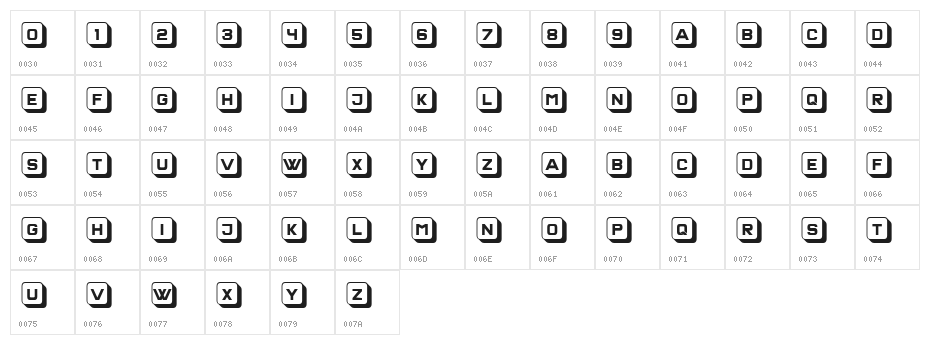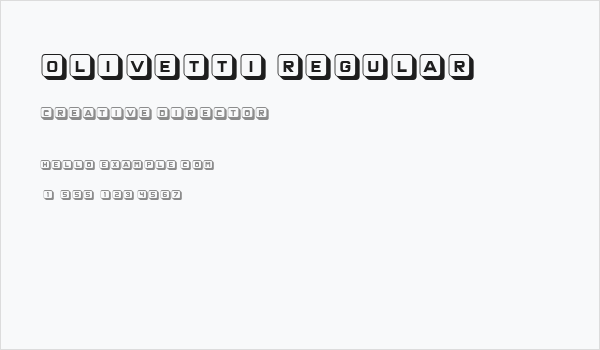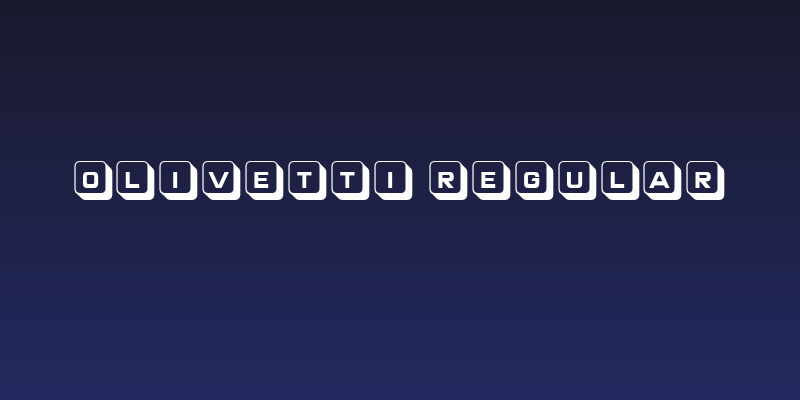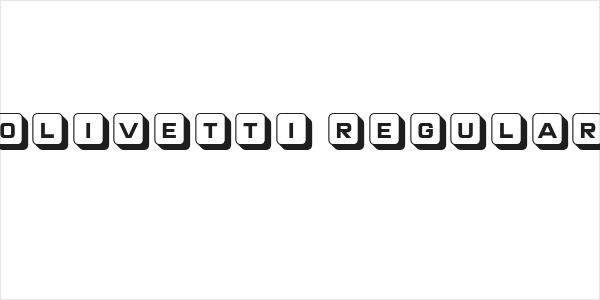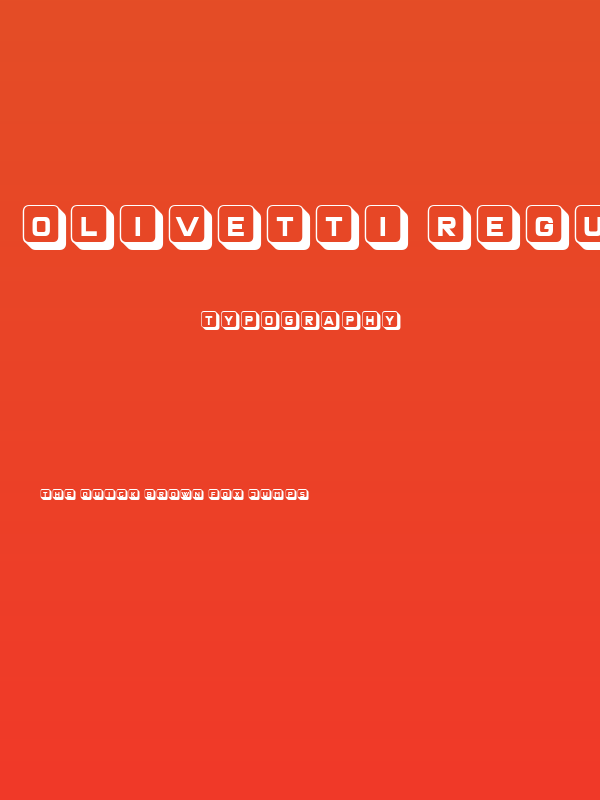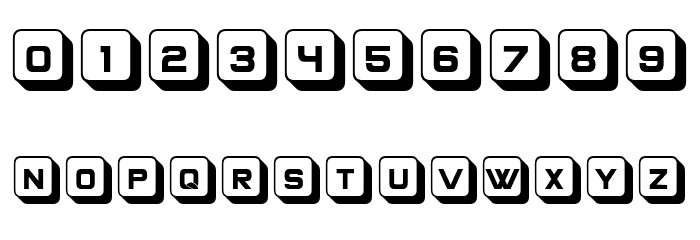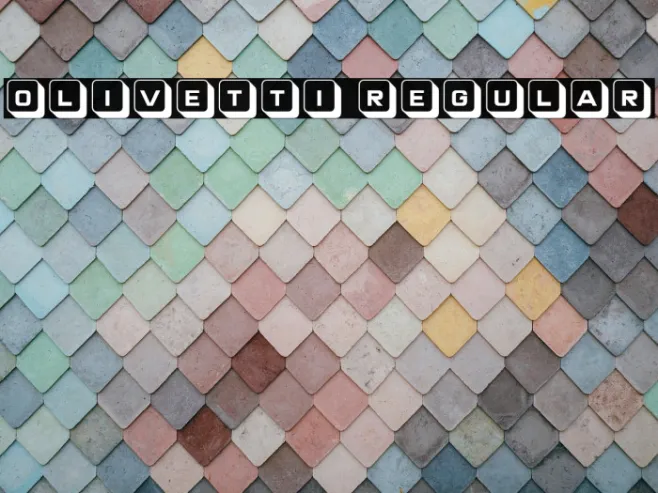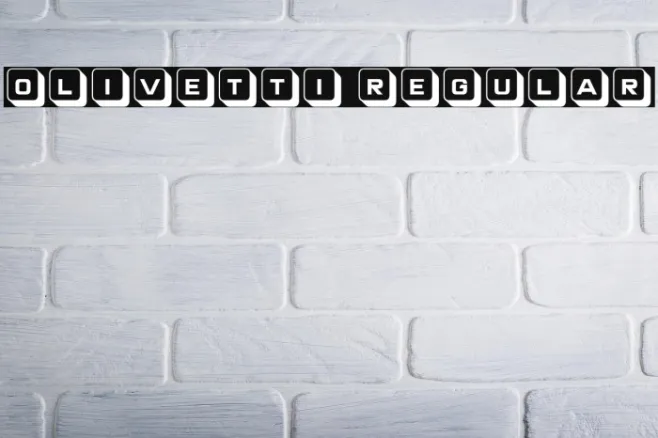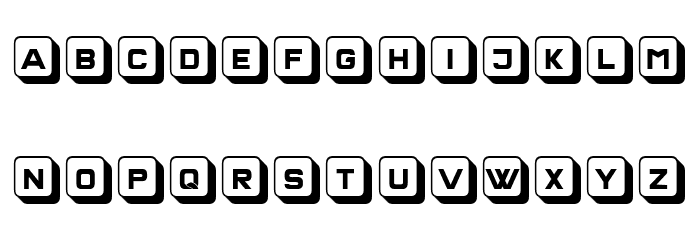
Olivetti Regular Font
Olivetti Regular Description
This font features a bold, geometric style with each character enclosed in a rounded square, reminiscent of vintage typewriter keys. The letters are uppercase and lowercase, with numerals and a selection of special characters. The design is clean and structured, with a strong emphasis on uniformity and clarity. The bold outlines and consistent spacing give it a distinct, retro feel, making it suitable for projects that require a touch of nostalgia or a mechanical aesthetic.